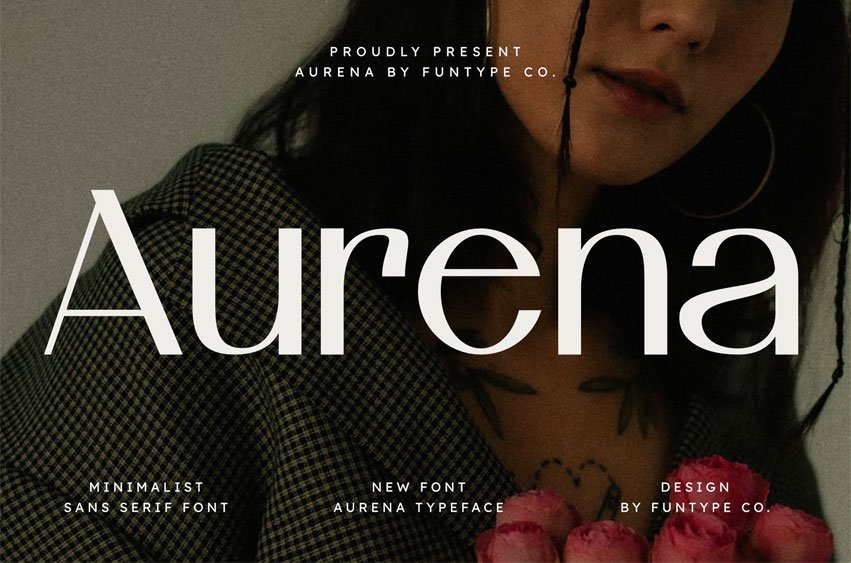
Aurena Font is a contemporary and refined sans serif typeface designed for the intersection of minimalism and high-end elegance. Built with clean geometric lines and balanced proportions, Aurena offers a sleek aesthetic that brings a sense of effortless sophistication and professional clarity to any creative project.
This font is the ultimate solution for designers working in luxury branding, fashion editorials, and minimalist advertising. Its versatile nature allows it to excel as both a dominant headline and a subtle, clean body text. Whether you are crafting a boutique logo, aesthetic social media content, or premium product packaging, Aurena provides a polished and modern look.
Main Features:
- Minimalist and Clean Sans Serif Design
- Modern Geometric Structure
- Refined and Professional Aesthetics
- Perfect for Luxury Branding & Fashion
Best Used For: High-end fashion branding, luxury boutique logos, minimalist editorial layouts, skincare and beauty packaging, aesthetic social media quotes, and modern corporate identities.